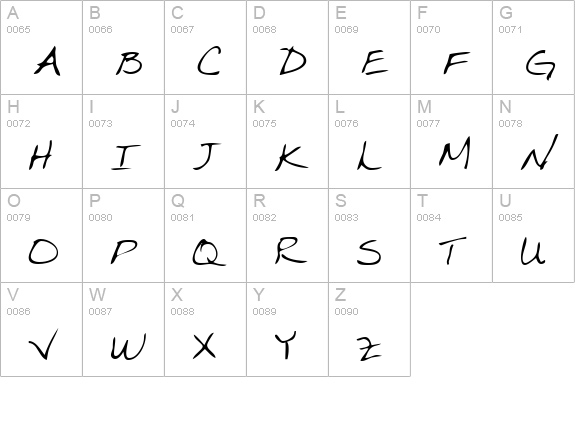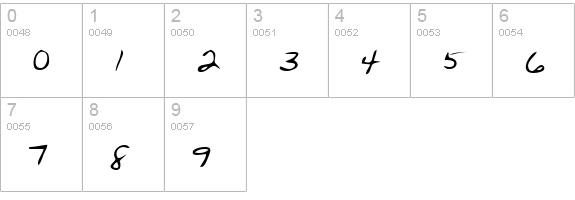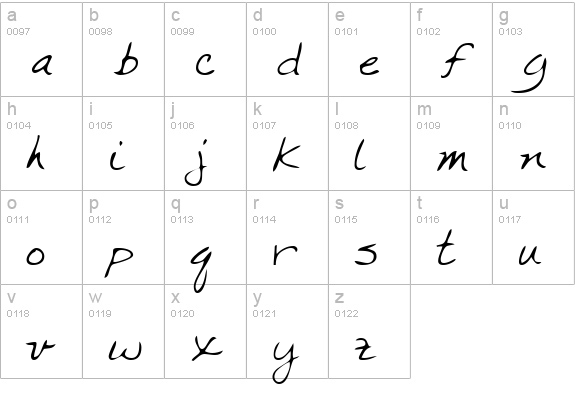
CrystalsHand Regular is the standard, neutral variant in the CrystalsHand typeface family \xE2\x80\x94 well suited to general body text, paragraphs, and standard typographic work.
CrystalsHand Regular font is a charming and elegant typeface that exudes a sense of sophistication and beauty. With its delicate curves and graceful strokes, this font is perfect for adding a touch of style to any design project. Whether you are creating invitations, logos, or marketing materials, CrystalsHand Regular font will elevate your work to the next level. The best part? CrystalsHand Regular font is completely free to download at FontsMarket.com. You can easily access this stunning font and enhance your designs without any cost. Don't miss out on this amazing opportunity to add a touch of elegance to your projects with CrystalsHand Regular font. Download it today and start creating beautiful designs effortlessly.